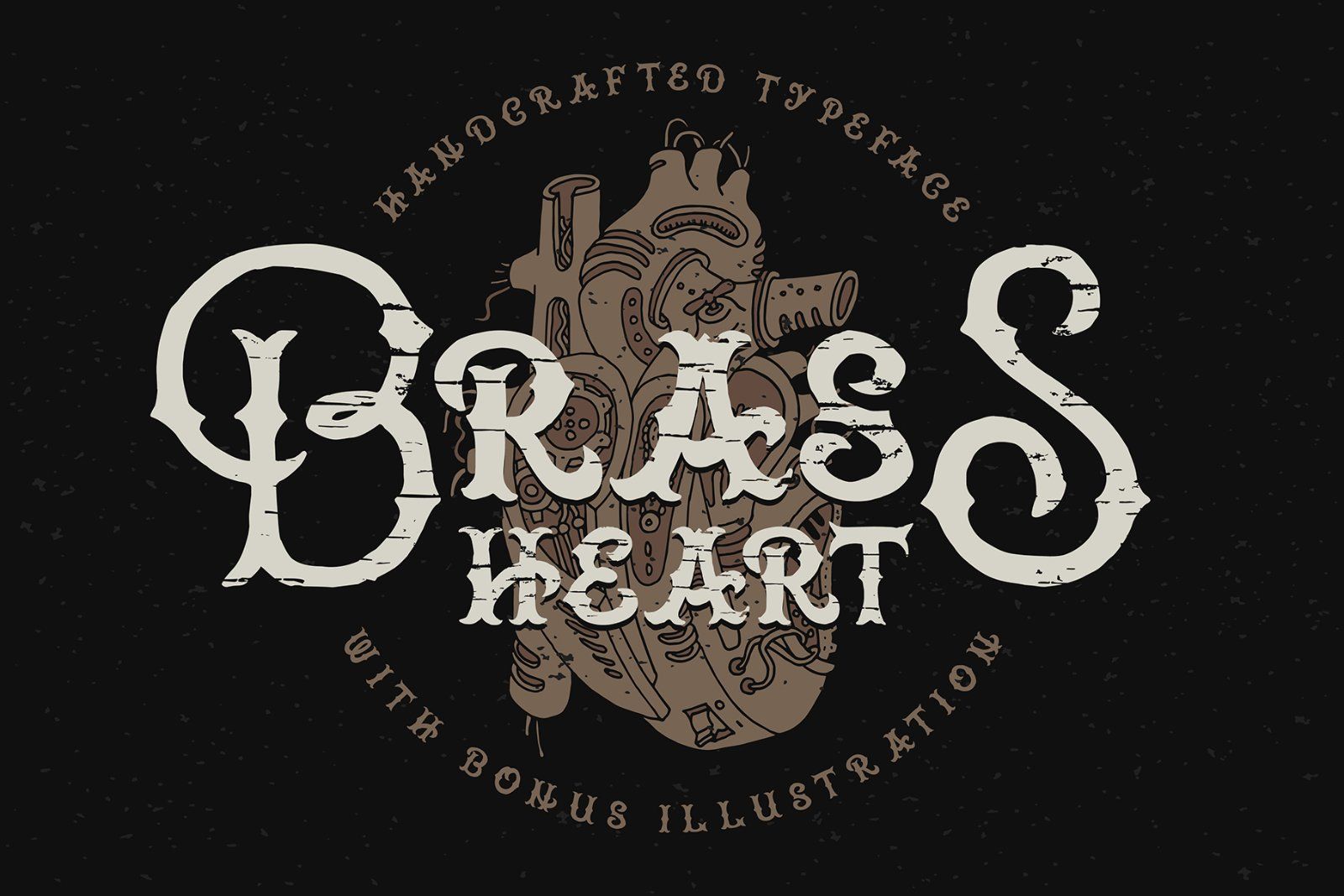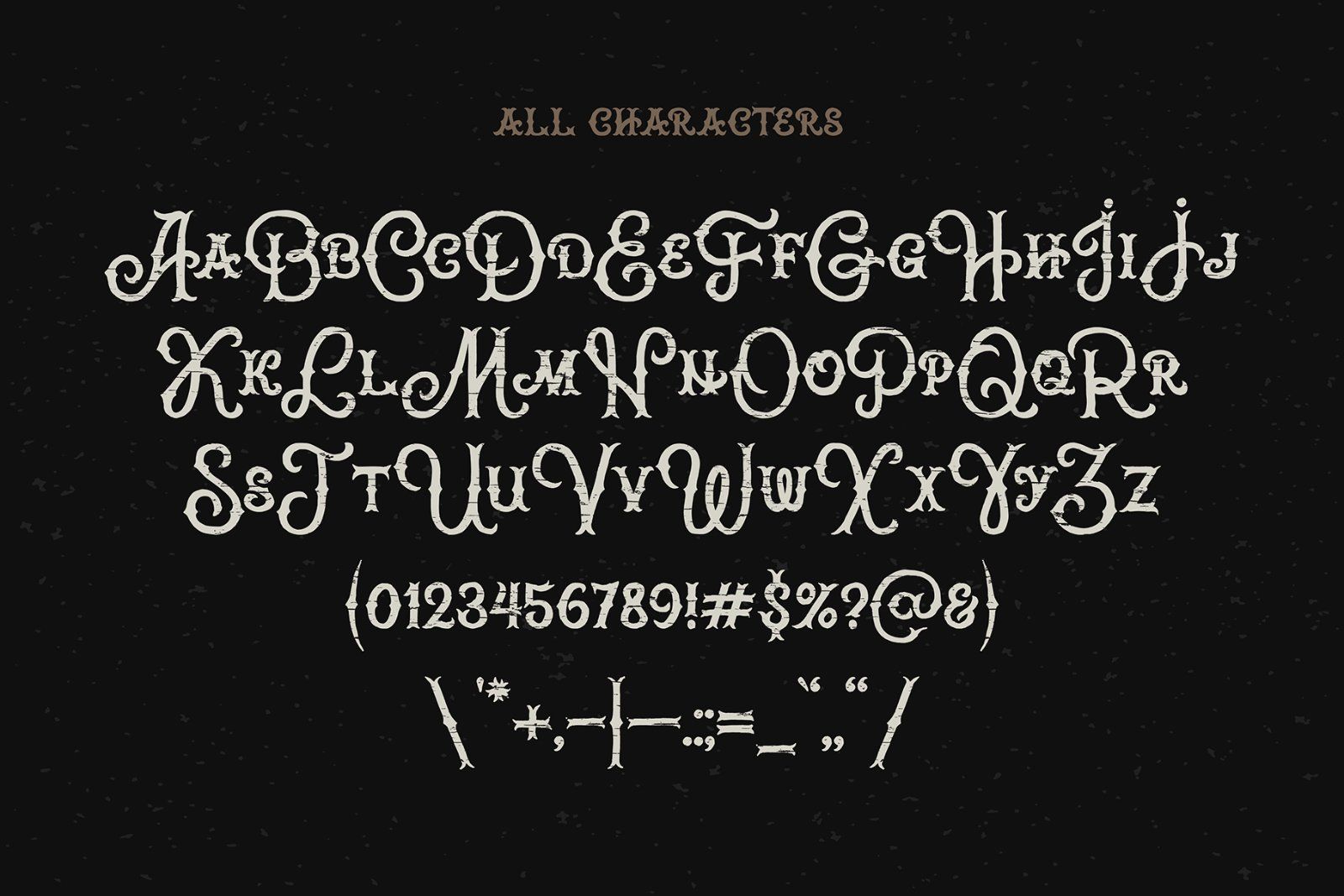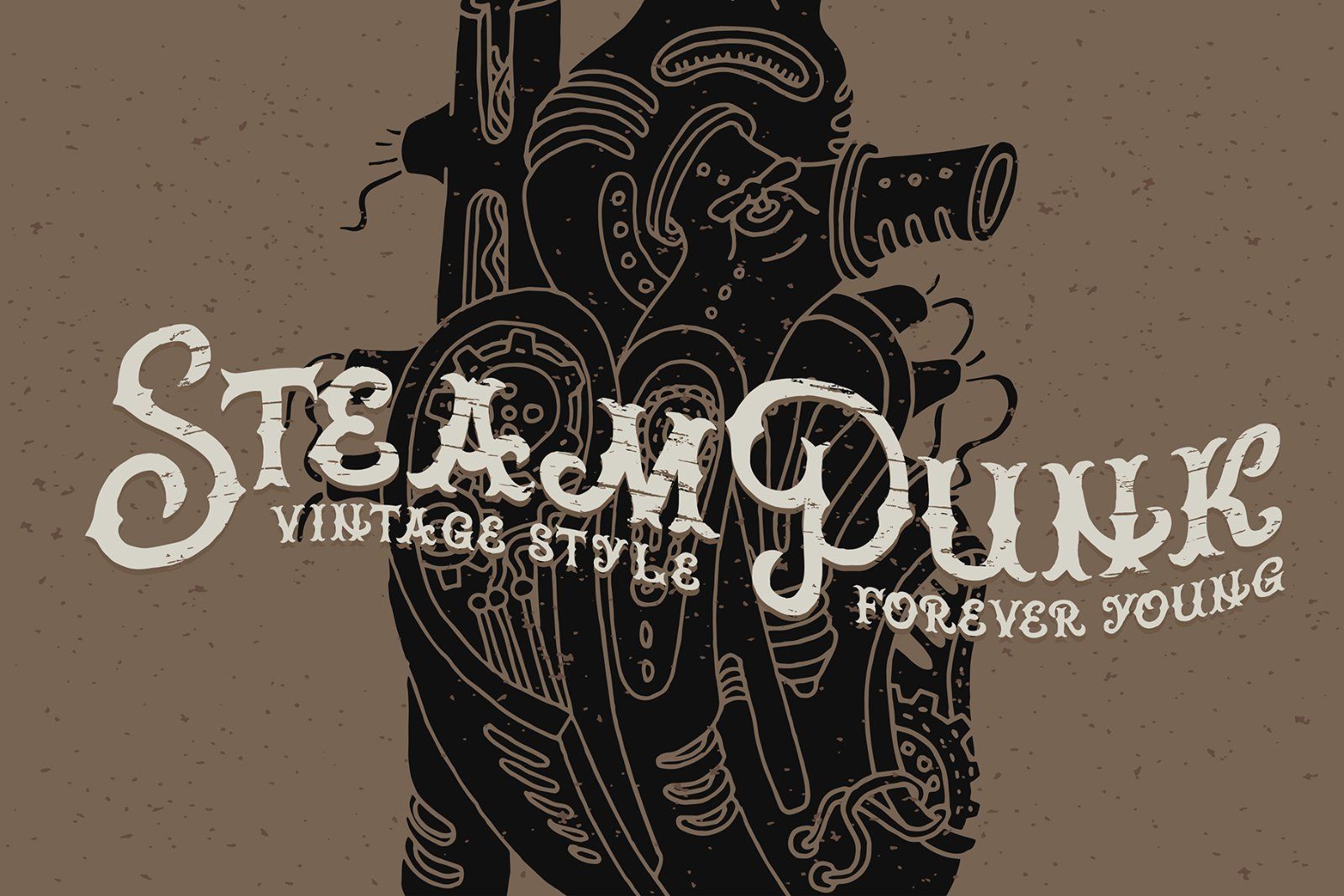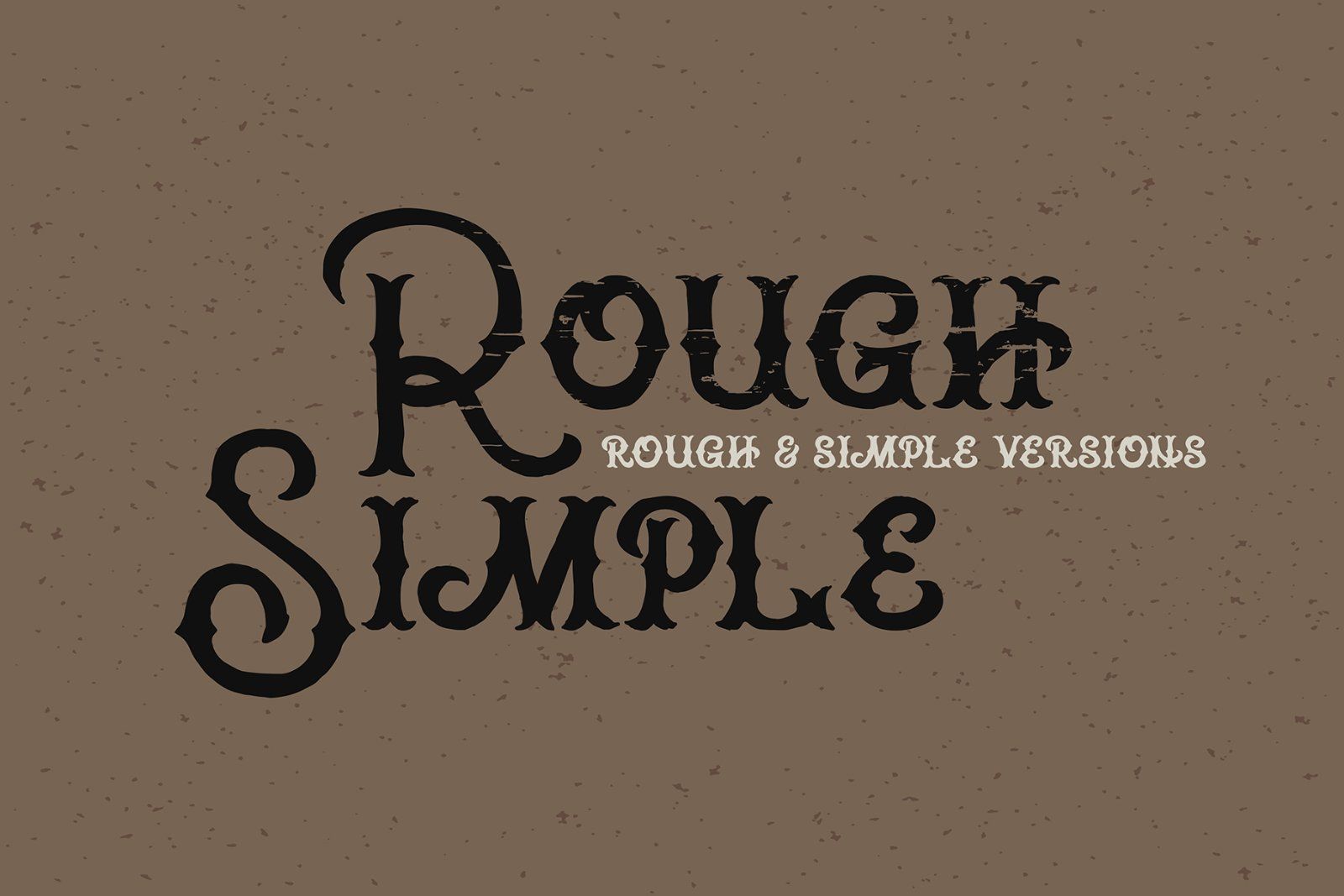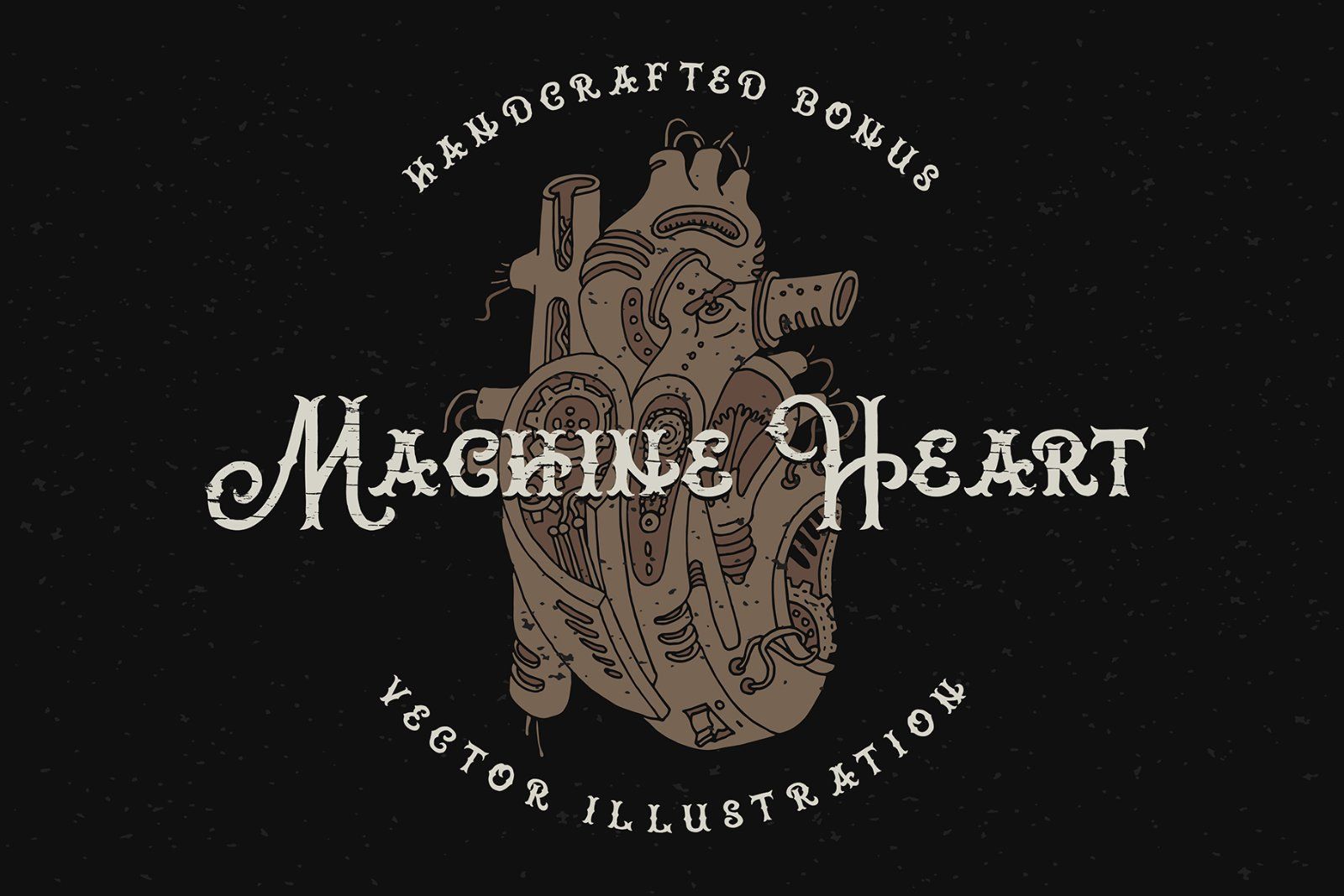
Hi! Presenting a handcrafted font Brass heart. This vintage steampunk style typeface has two variations: with rough surface and simple one. As a bonus you also will get a vector hand drawn illustration of a machine mechanic heart.
Note: This font contains only Latin characters (all available characters you can see on 3rd screenshot)